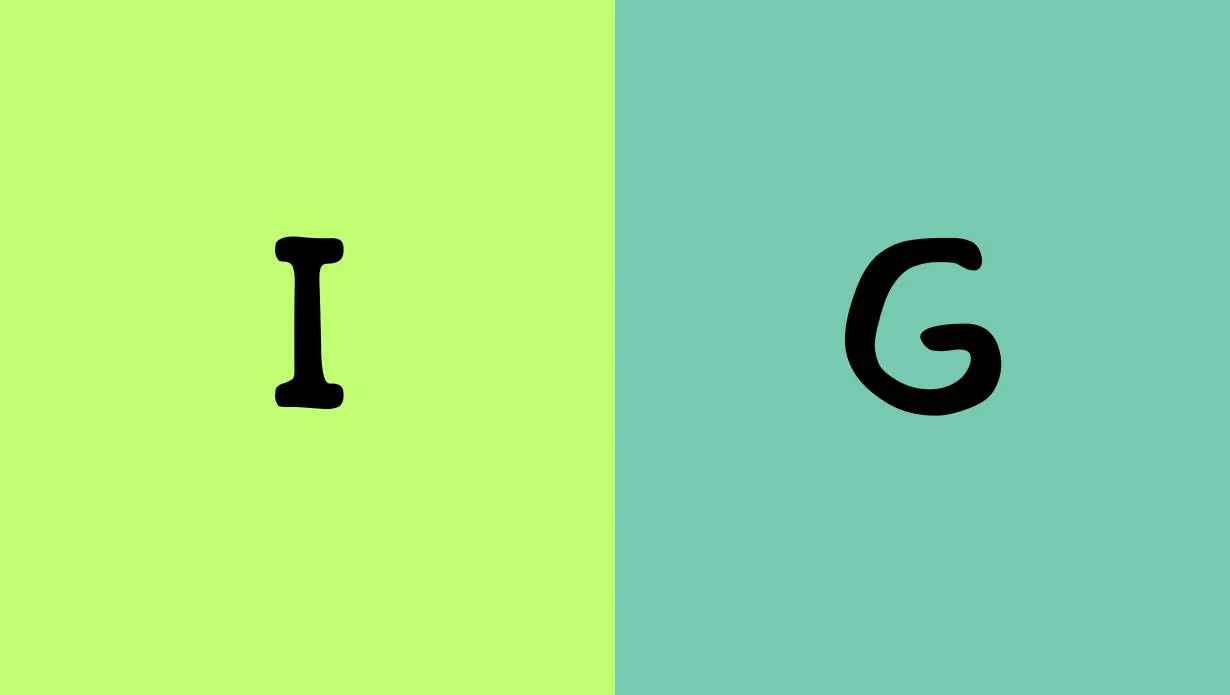
Ingat Font is a Handwritten font that was crafted by two talented designers Andria Dehasta & Situjuh Nazara, and released by 7NTypes.
This typeface was made to present a very cute and friendly handcrafted typeface that is mostly used in children’s design projects.
It has 2 styles and delightful characters in uppercase, lowercase, numbers, punctuations, accents, alternates, and some special characters that can add a legible and casual touch to any project.